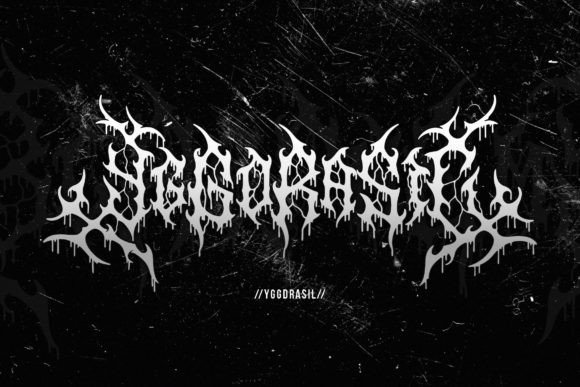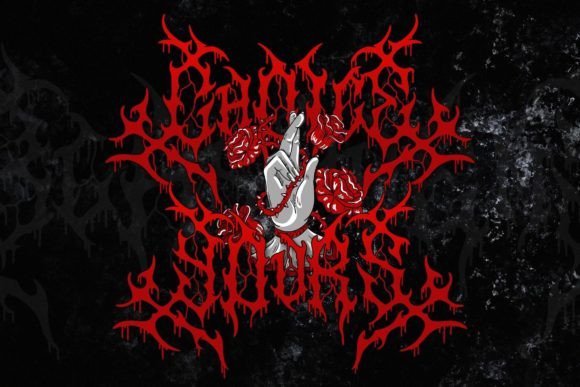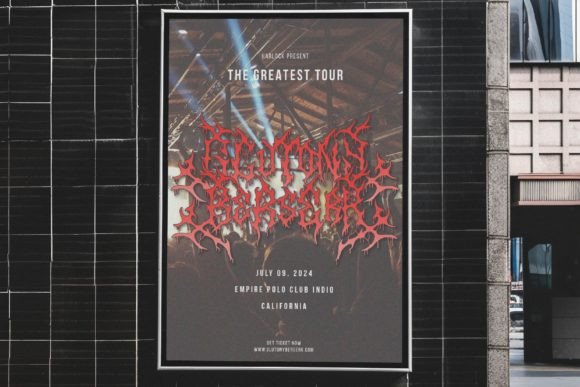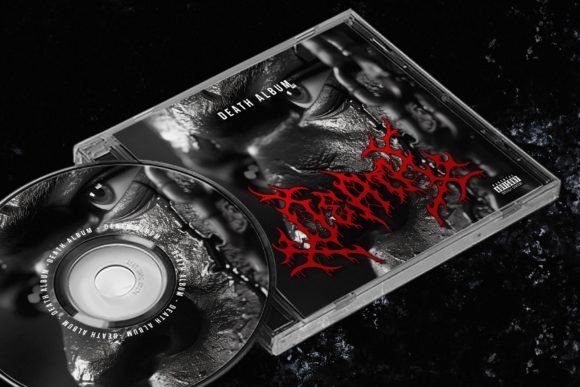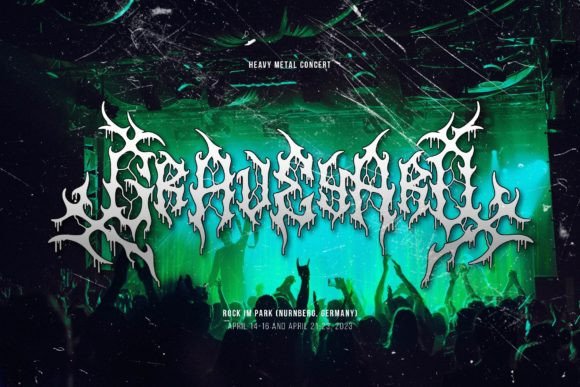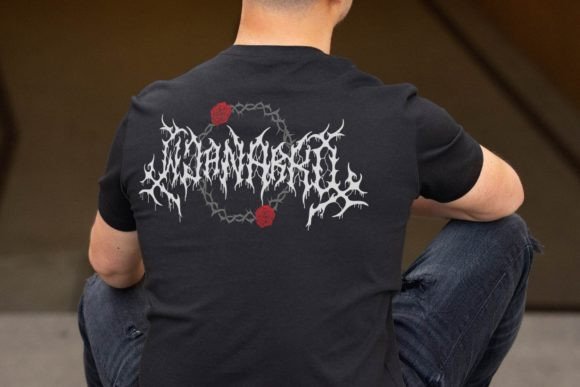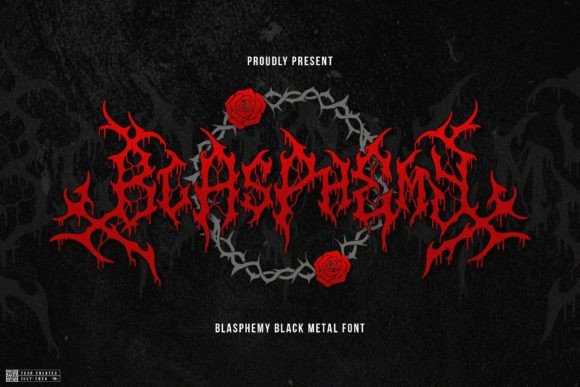
Unleash the Power of Blasphemy Font: A Bold and Edgy Typeface for Designers
Are you a designer or crafter looking for a font that exudes power, intensity, and a touch of rebellion? Look no further than the Blasphemy Font, a black metal typeface that is sure to make a statement in your artwork or designs. With its sharp, jagged letters and dark aesthetic, this font is perfect for creating a scary or powerful feel that will leave a lasting impression on your audience.
The Aggressive Style of Blasphemy Font
Blasphemy Font is a bold and twisted typeface that embodies the spirit of chaos and rebellion. Its aggressive style is characterized by sharp, jagged letters that seem to pierce through the screen, giving off a dark and intense vibe. The font’s bold and condensed design makes it perfect for creating eye-catching headlines, titles, and logos that demand attention.
Whether you’re designing a poster for a heavy metal concert, a logo for a punk rock band, or a title sequence for a horror movie, Blasphemy Font is the perfect choice. Its edgy and rebellious style will add a touch of attitude and aggression to your design, setting it apart from more mundane and generic fonts.
Design Elements of Blasphemy Font
So, what makes Blasphemy Font so unique and powerful? Here are some of its key design elements:
- Sharp and Jagged Letters: The font’s letters are characterized by sharp, jagged edges that give off a dark and intense vibe.
- Bold and Condensed Design: The font’s bold and condensed design makes it perfect for creating eye-catching headlines and titles.
- Twisted and Distorted Shapes: The font’s letters are twisted and distorted, giving off a chaotic and rebellious vibe.
Uses of Blasphemy Font
Blasphemy Font is a versatile typeface that can be used in a variety of design projects, including:
- Heavy Metal and Punk Rock Designs: The font’s aggressive style makes it perfect for designing posters, logos, and merchandise for heavy metal and punk rock bands.
- Horror and Dark Fantasy Designs: The font’s dark and intense vibe makes it perfect for designing titles, logos, and posters for horror movies, books, and games.
- Rebellion and Activism Designs: The font’s rebellious style makes it perfect for designing posters, flyers, and merchandise for social and environmental activism campaigns.
Tips for Using Blasphemy Font
Here are some tips for using Blasphemy Font in your designs:
- Use it Sparingly: Due to its bold and aggressive style, Blasphemy Font is best used sparingly to avoid overwhelming the viewer.
- Pair it with Contrasting Fonts: Pair Blasphemy Font with contrasting fonts, such as clean and minimalist fonts, to create visual interest and hierarchy.
- Experiment with Colors: Experiment with different colors, such as dark reds and blacks, to enhance the font’s dark and intense vibe.
In conclusion, Blasphemy Font is a powerful and edgy typeface that is perfect for designers and crafters looking to add a touch of rebellion and aggression to their designs. With its sharp, jagged letters and dark aesthetic, this font is sure to make a statement in any design project. Whether you’re designing for heavy metal and punk rock, horror and dark fantasy, or rebellion and activism, Blasphemy Font is the perfect choice.